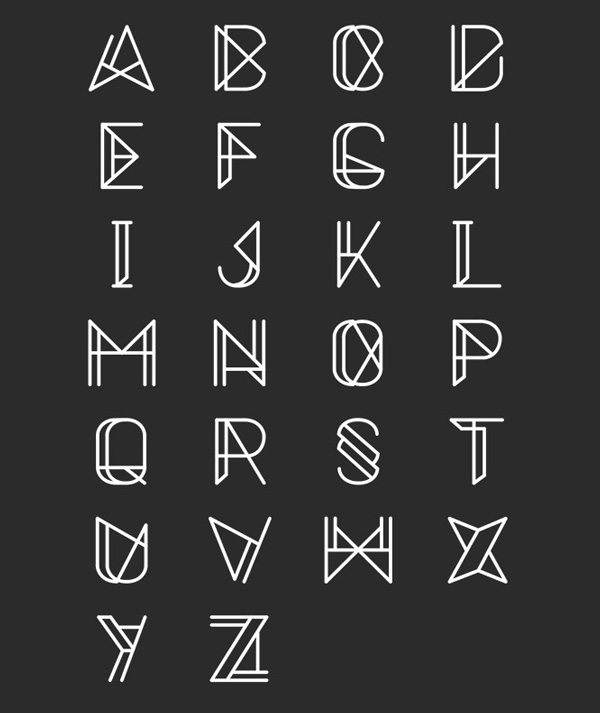
Metrica font
The Font is a new uppercase, sharp and mechanical typeface. Inspired by architecture, the font is designed with a flat, geometric design – made free for personal use (commercial upon request). Designed by Oliver James.